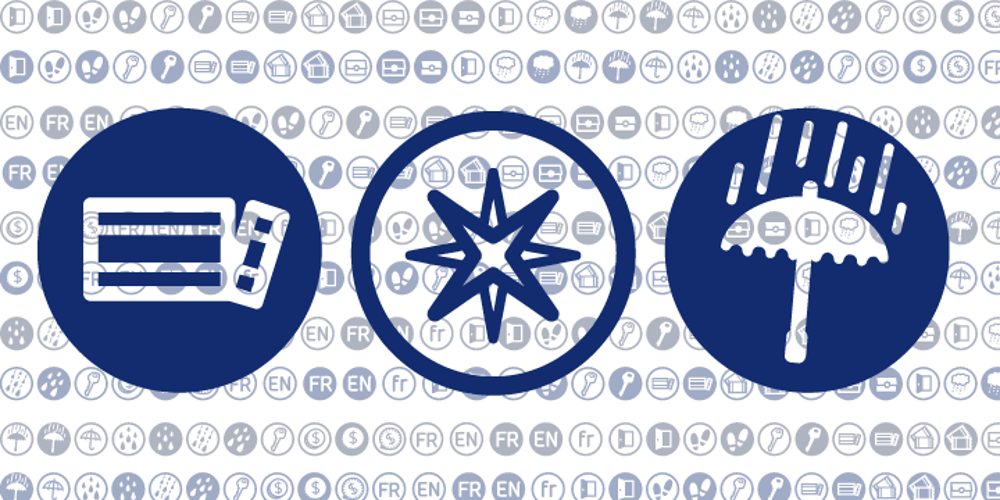
Subzoete
Subzoete font
Subzoete Font Family was designed by Valérie Desrochers and published by Subtitude. Subzoete contains 1 styles and family package options. Subzoete is a gathering of icons used in a cultural agenda for the city of Montreal in Quebec. They are unique and original. Great for simple indications such as tickets, free admission, outdoor events, etc.